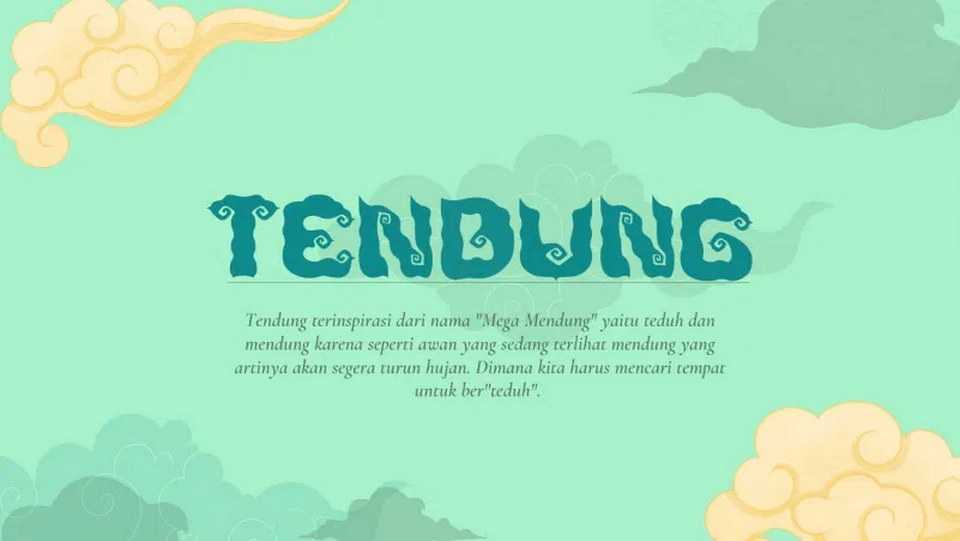
Download Tendung font, an authentic Indonesian traditional typeface, inspired by Indonesian bateeq “Mega Mendung”, that has even become the icon of the Cirebon Area, West Java.